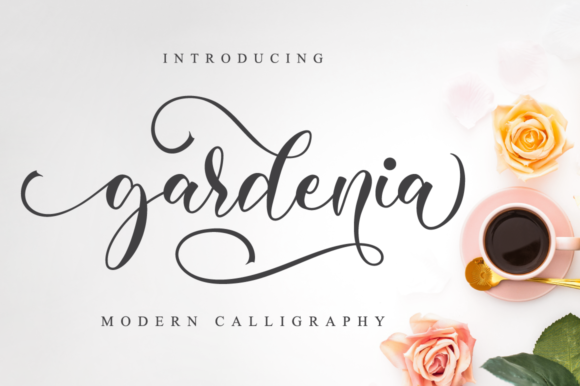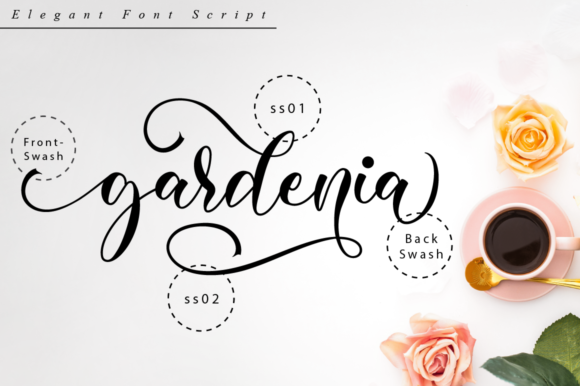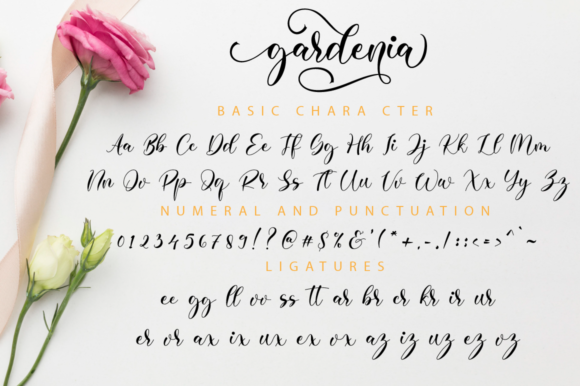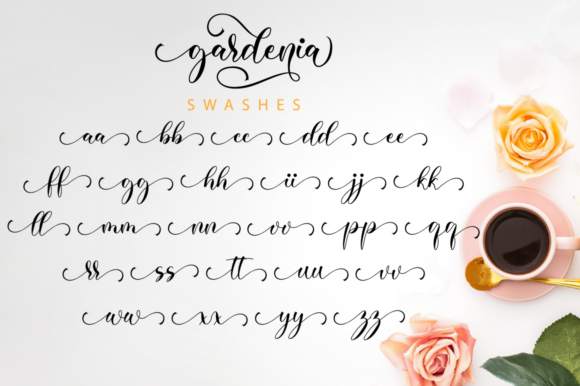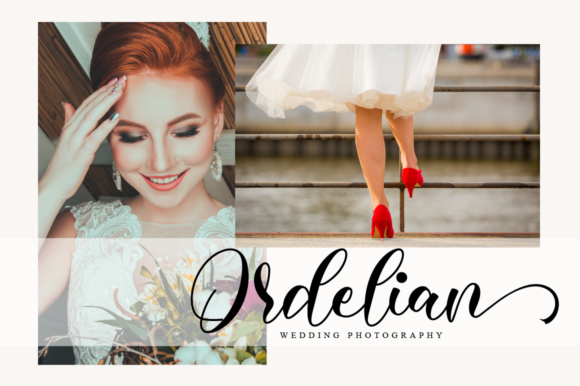
About Gardenia Font
Gardenia is a stunning handwritten font that exudes elegance and grace. With its flowing and smooth lines, it adds a touch of sophistication to any design project.
The versatility of Gardenia allows it to be used in a wide range of applications. Whether you’re creating wedding invitations, logos, branding materials, quotes, or social media graphics, this font enhances the beauty and visual appeal of your designs.
One of the standout features of Gardenia is its extensive glyph and swash collection, which is easily accessible through its PUA encoding. This means you can effortlessly incorporate various decorative elements, alternate characters, and stylish swashes to add flair and creativity to your text.
The varying baseline of Gardenia adds a dynamic and artistic touch to your typography, making it visually captivating and unique. The smooth lines and elegant glyphs give the font a refined and polished look, making it suitable for both formal and informal designs.
Gardenia strikes a perfect balance between being not too thin and not too thick, allowing it to maintain readability even at smaller sizes. The careful design and attention to detail ensure that each character is well-balanced and visually pleasing, creating a harmonious overall appearance.
Whether you’re designing for print or digital platforms, Gardenia’s timeless elegance will make your projects stand out. Its versatility and stunning alternates give you the freedom to create truly exceptional designs that capture attention and leave a lasting impression.
In conclusion, Gardenia is an elegant and flowing handwritten font that enhances the beauty of your projects. With its PUA encoding, you can easily access a wide range of glyphs, swashes, and alternates, allowing you to add creativity and visual interest to your designs. Fall in love with the sophistication of Gardenia and let it elevate your creative endeavors to new heights.